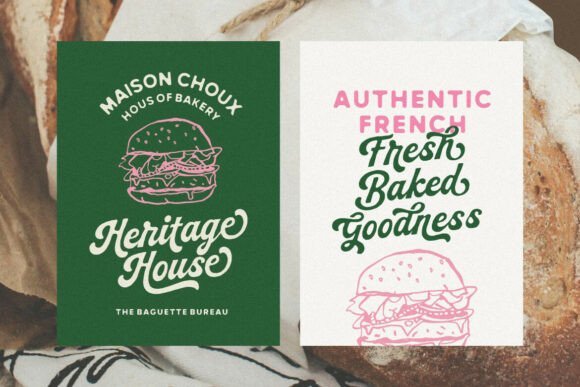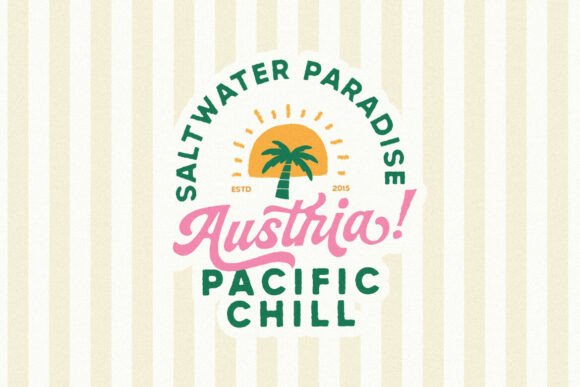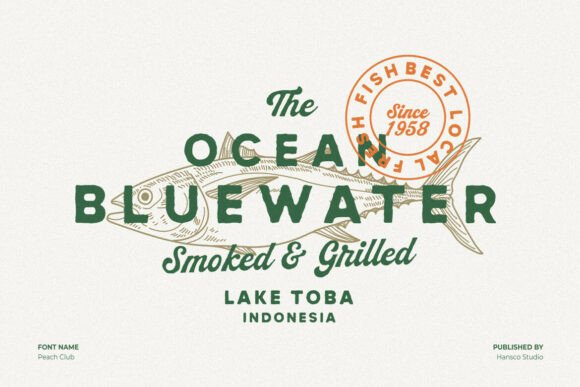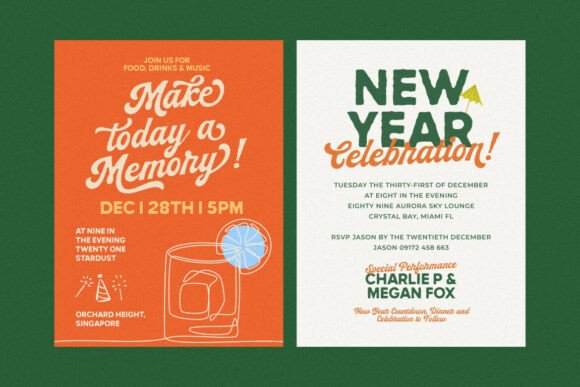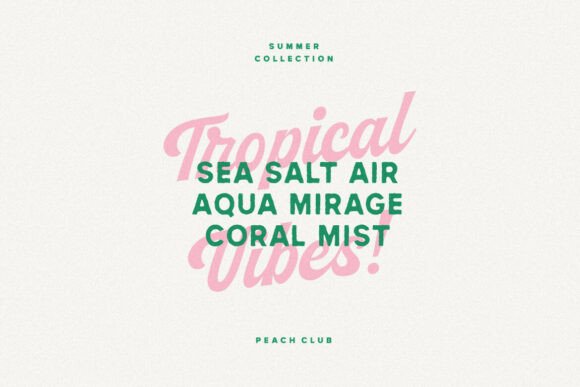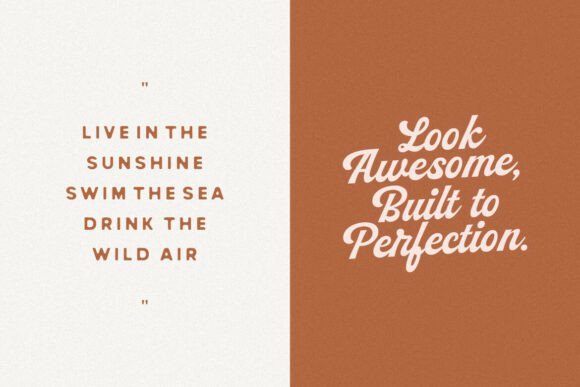
Introduction to Peach Club Font
Introducing a beautifully crafted Hand-Drawn Peach Club Font that combines the charm of classic script lettering with the clean versatility of a modern sans serif.
The script font features natural strokes, smooth curves, and authentic hand-drawn imperfections, giving your designs a warm, nostalgic personality Perfect for logos, branding, packaging, and vintage-inspired artwork.
Peach Club Font offers exceptional quality and versatility, making it a valuable addition to your design toolkit. Whether you’re creating for personal projects or commercial use, Peach Club Font delivers professional results.